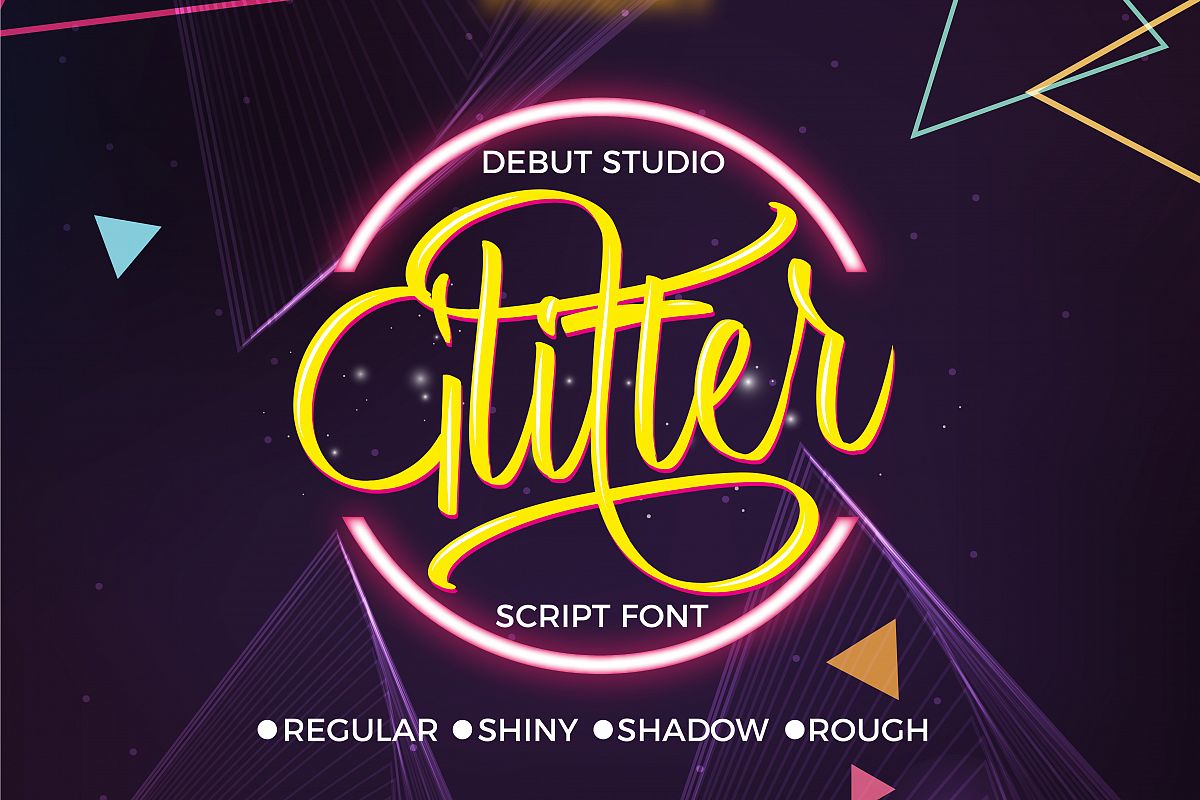
Glitter
Glitter Shine
Glitter Shadow
Glitter Rough
This font is inspired from handwriting itself, it is suitable for design-themed purposes such as festivals, graduation, weddings, new year and others.
The glitter script font has 4 kinds, ranging from regular, shiny, shadow, and rough version. 3 of the 4 files are used layered. It allows you to create posts with shiny and shadow effects without the need for additional software.
- Alternate Stylistic Character
- Multilanguage Support